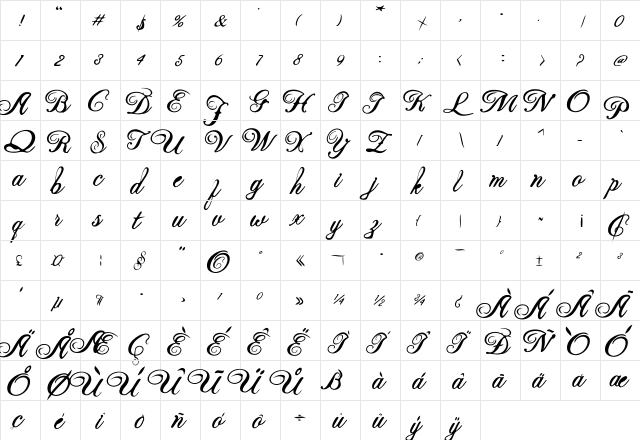
Beauty Regular
Design Context for Beauty Typeface
Beauty is a composed and adaptable typeface that performs quietly and consistently across a wide range of design contexts.